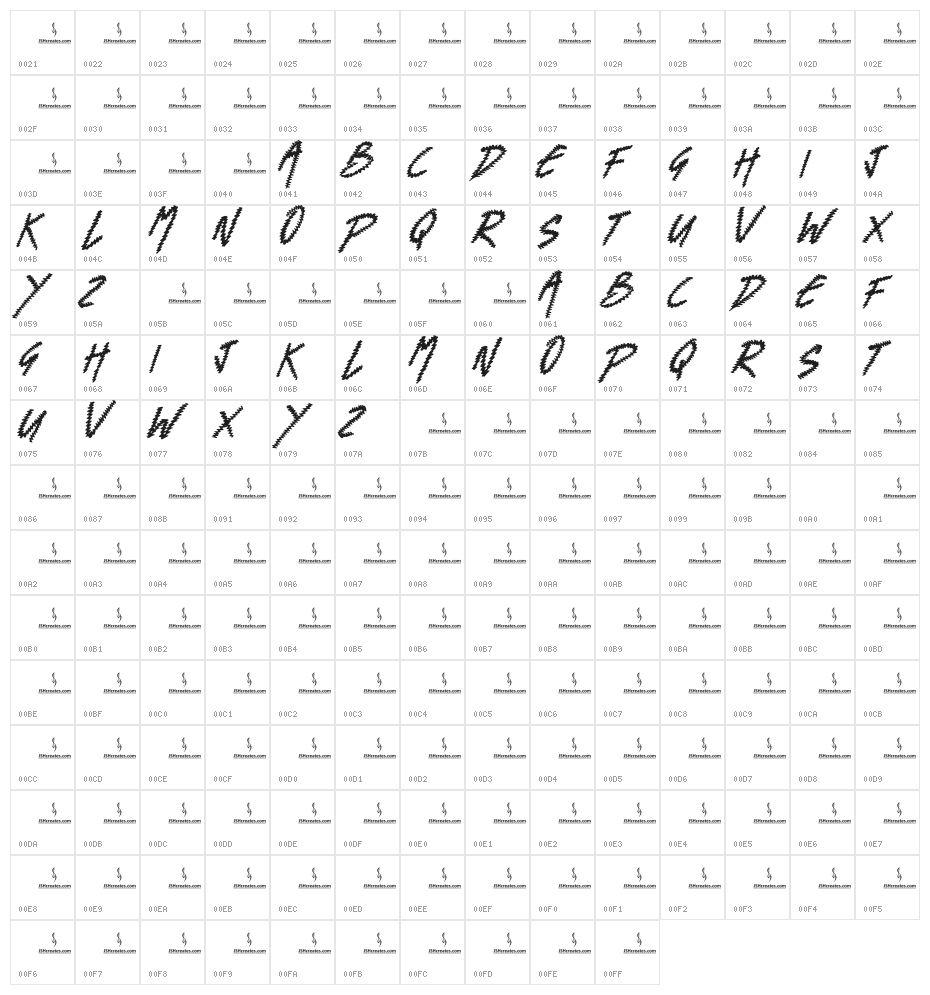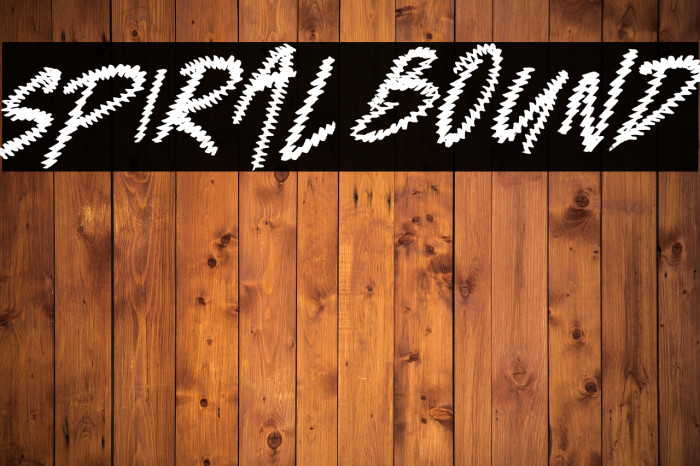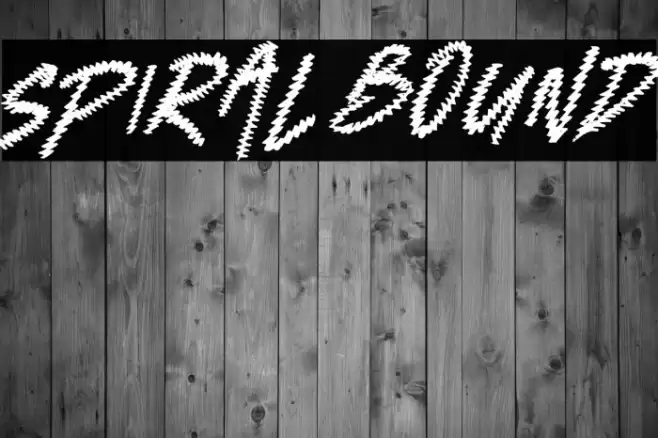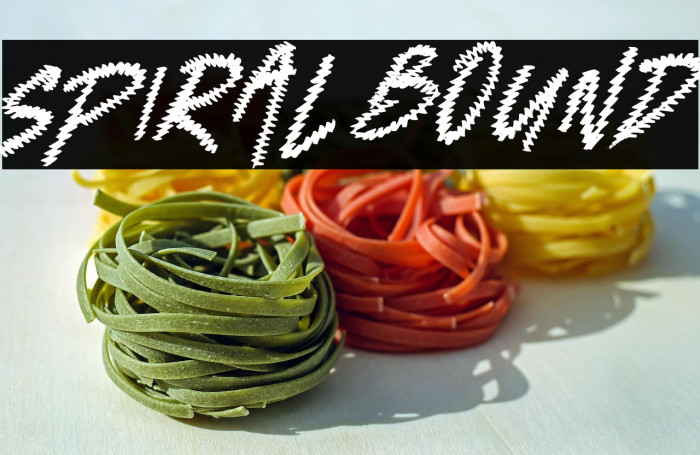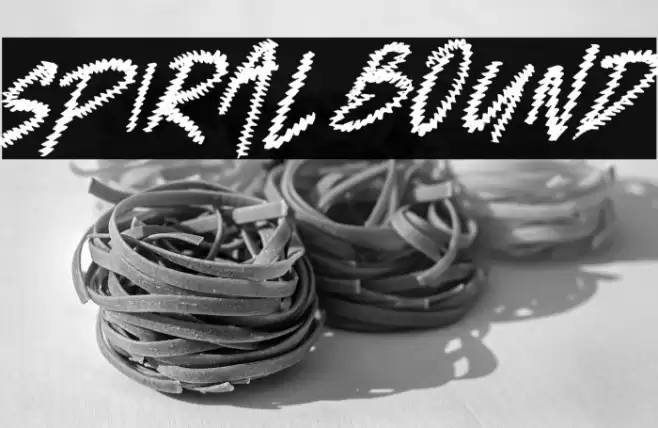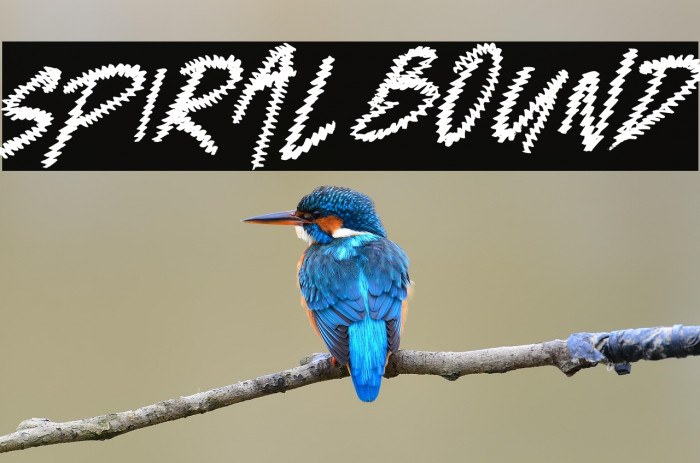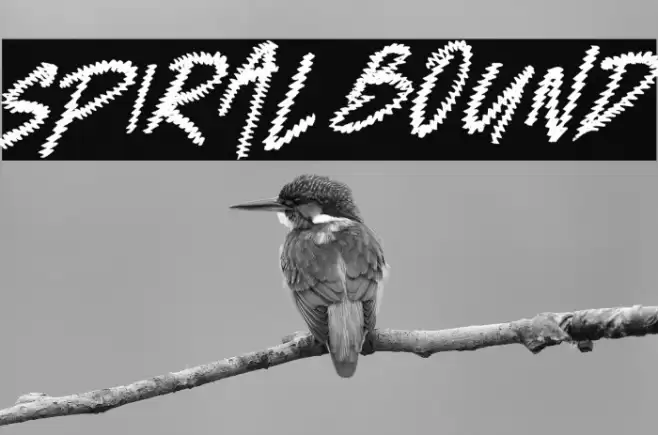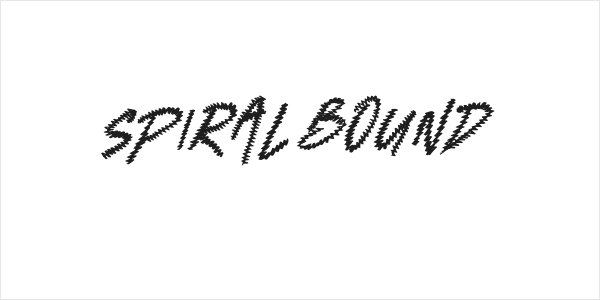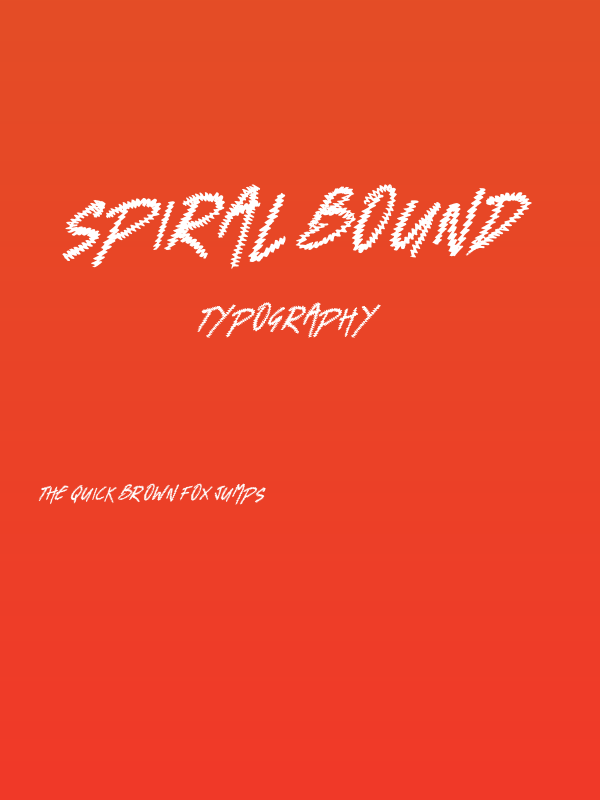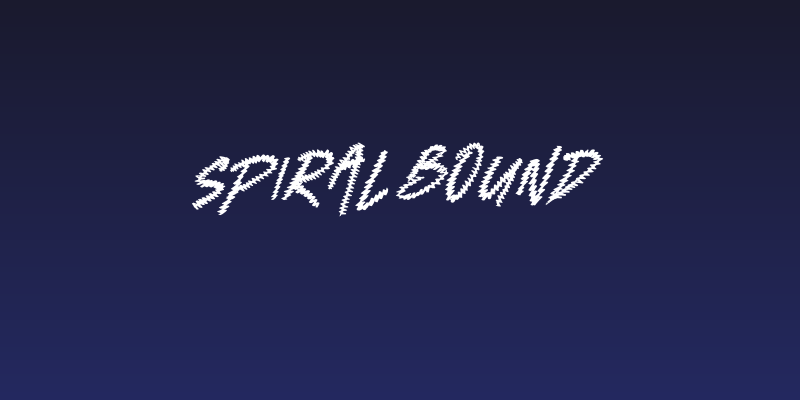
Spiral Bound Font
Spiral Bound Description
This font features a dynamic and energetic style with sharp, jagged edges that create a sense of movement and excitement. The letters are bold and slightly slanted, giving them a handwritten appearance with a modern twist. The strokes are consistent in thickness, contributing to a cohesive look across all characters. The font's unique zigzag pattern adds a decorative element, making it stand out in any design. Its playful and edgy aesthetic is perfect for projects that require a bold statement or a touch of creativity.